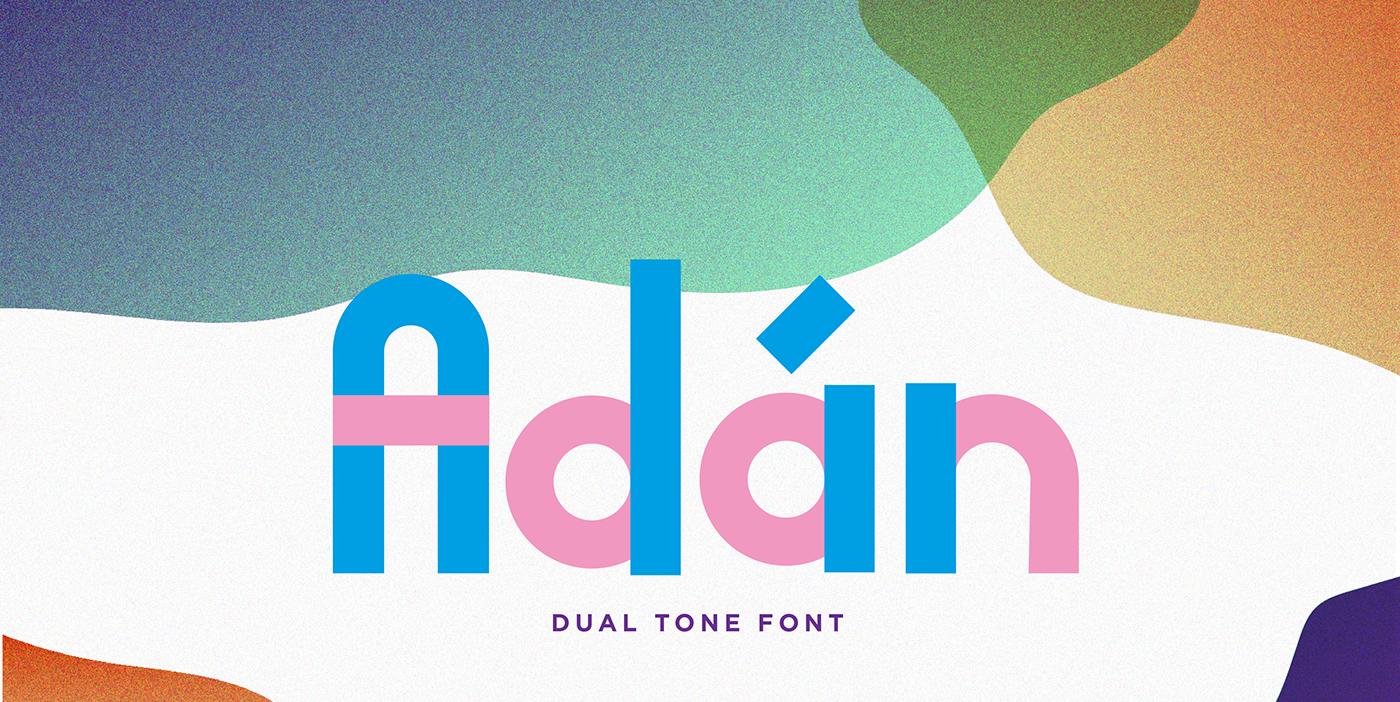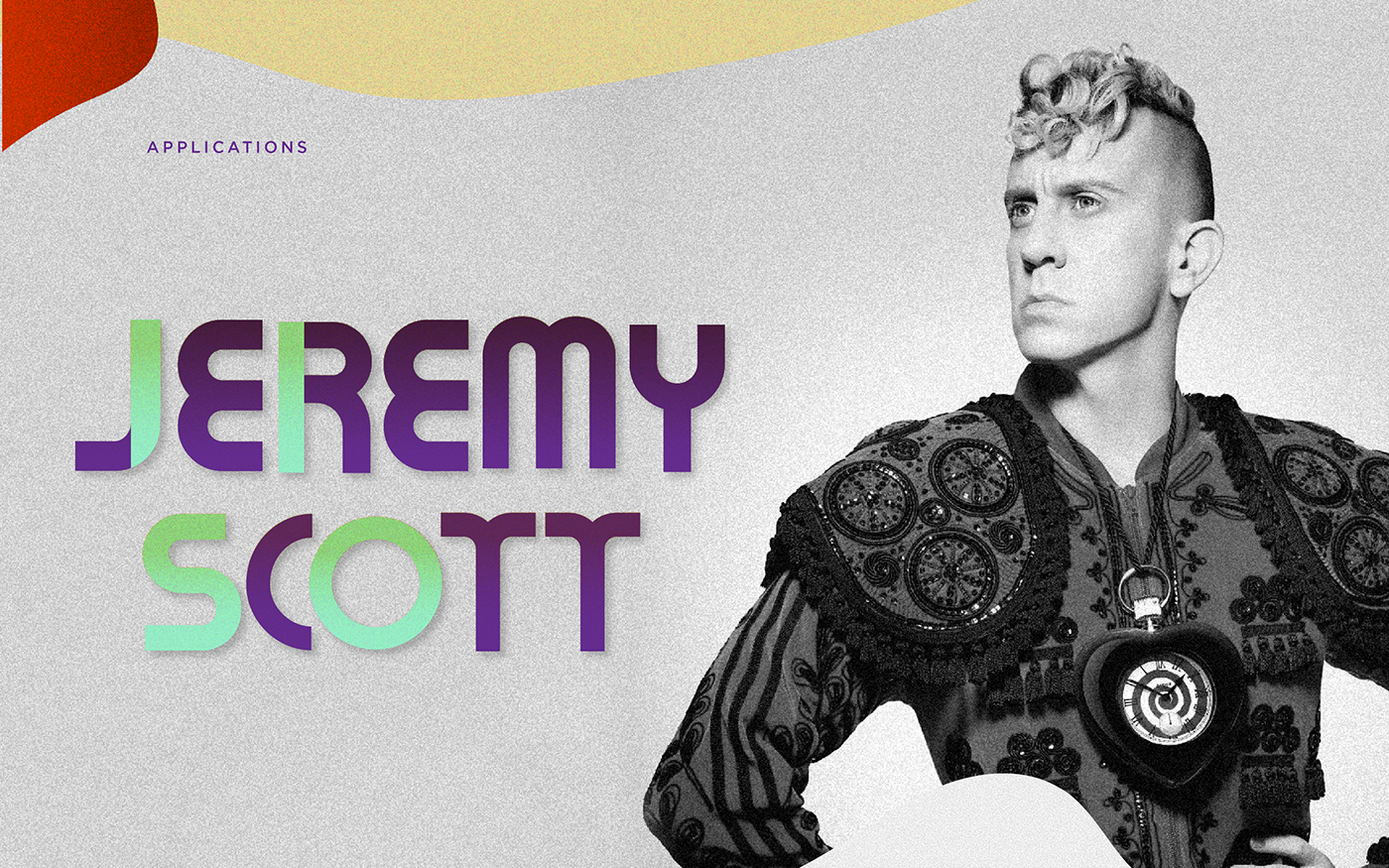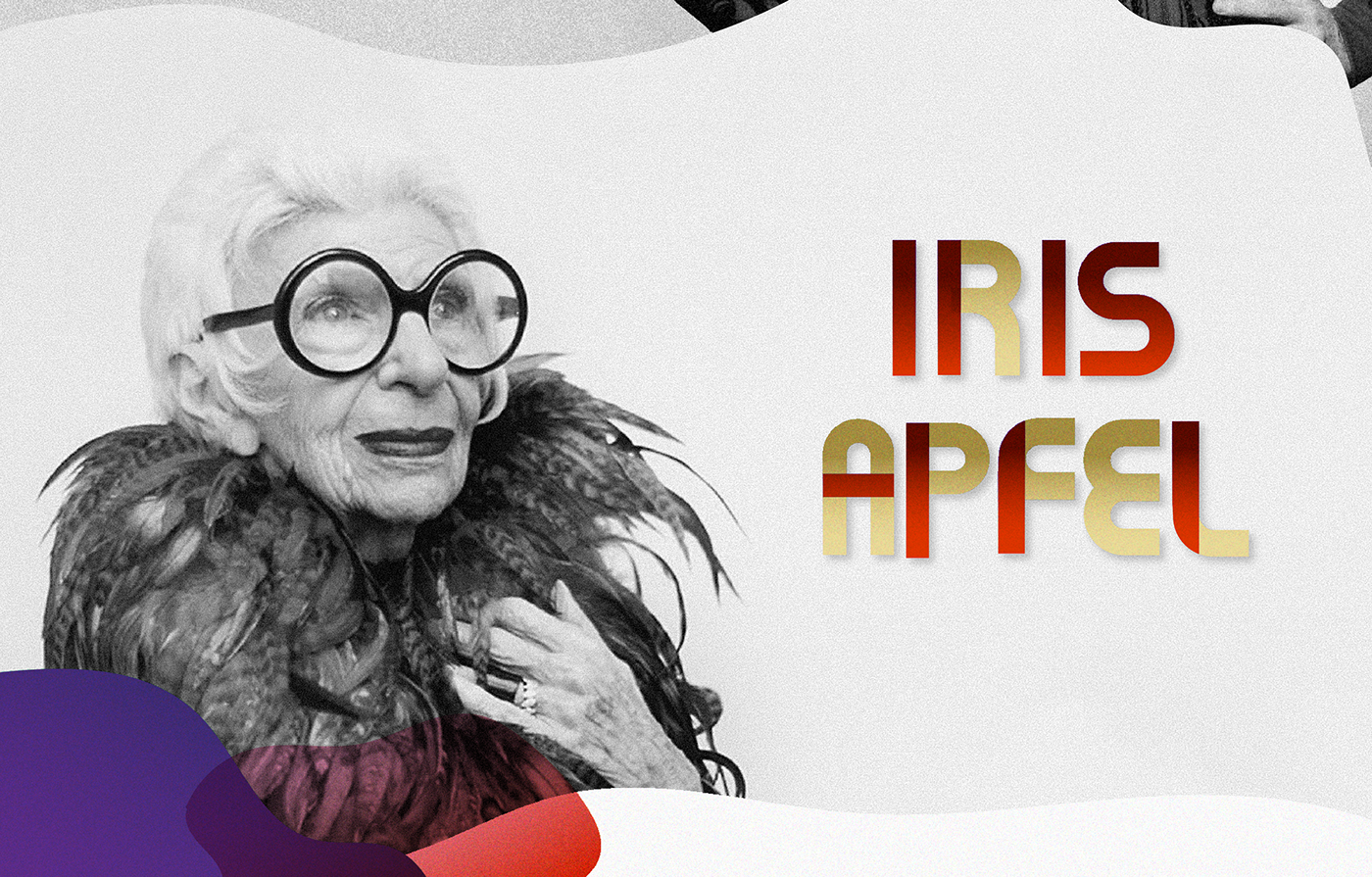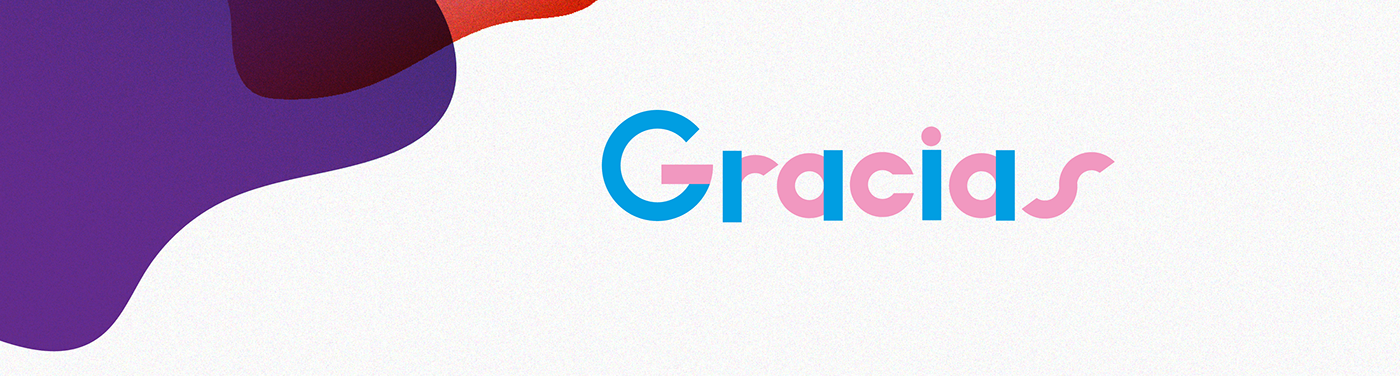
If you’re jazzing up your artwork, consider working in a new typeface. Adán was designed by Cristian López and is perfect for everything from fashion magazines to greeting cards. Free for personal and commercial work! The file is delivered as .ai.